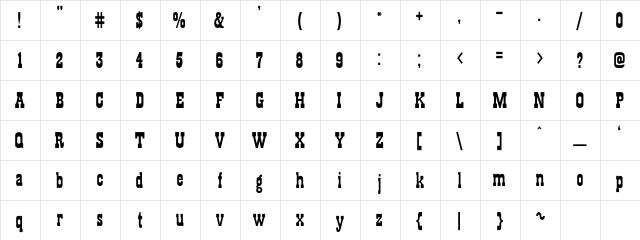
PlayBilly Regular Free Font
PlayBilly Regular
Design Context for PlayBilly
PlayBilly is a composed and adaptable typeface that performs quietly and consistently across a wide range of design contexts.